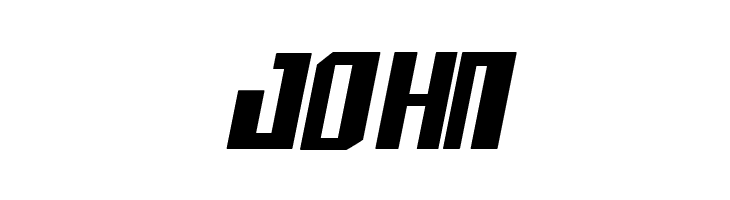
Oramac Chrome Italic Font
- Font: Oramac Chrome Italic
( Fonts by Press Gang Studios - Andeh Pinkard - www.pressgang-studios.com )
A bold, italicized font with a dynamic, angular design.